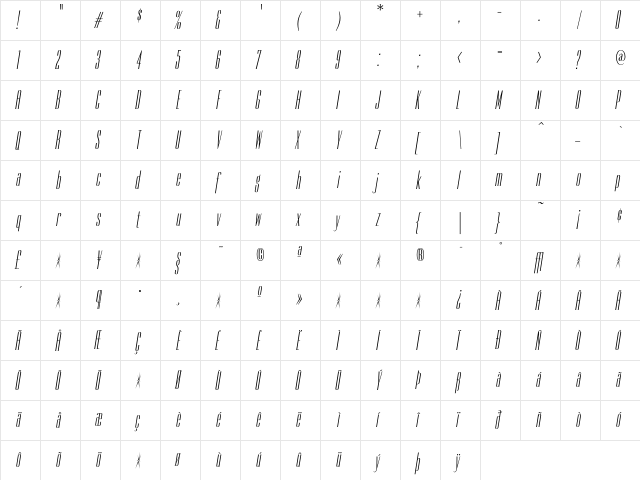
Empire Italic
Design Context for Empire Typeface
Empire is a composed and adaptable typeface that performs quietly and consistently across a wide range of design contexts. Its italic angle brings a sense of urgency and motion to the letterforms.
Pro Tip: Use Empire for emphasis, pull quotes, and subheadings where its slanted energy can add rhythm to the layout.